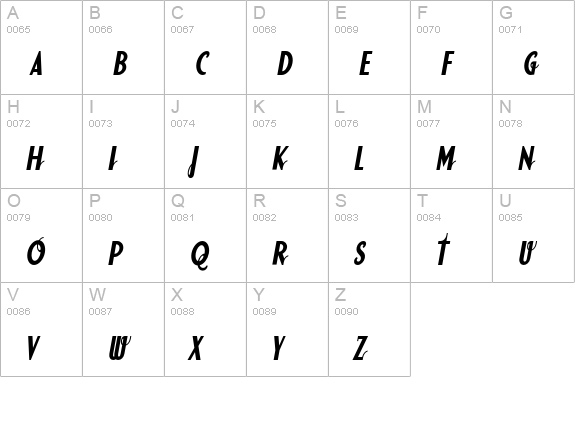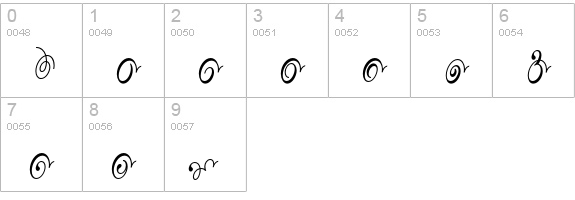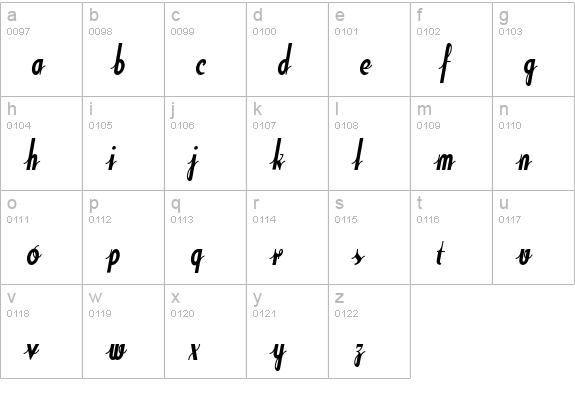
SodaScriptBoldExtras Font Details
Introducing SodaScriptBoldExtras, a captivating and expressive font that will add a touch of flair to any design project. With its bold and distinctive letterforms, this typeface exudes confidence and creativity, making it perfect for eye-catching headlines, striking logos, and attention-grabbing displays. But what truly sets SodaScriptBoldExtras apart is that it is available for free! That's right, this stunning font can be yours without spending a dime. Whether you're a professional designer or an aspiring artist, having access to high-quality fonts shouldn't be limited by budget constraints. That's why SodaScriptBoldExtras is freely available to download at FontsMarket.com. This font's versatility knows no bounds. Its bold strokes and unique character shapes make it an excellent choice for everything from branding and advertising to packaging and social media graphics. Let SodaScriptBoldExtras bring your designs to life with its captivating presence and unmistakable personality. With SodaScriptBoldExtras, you can effortlessly make a bold statement and leave a lasting impression. Its boldness and elegance will command attention and ensure that your message is heard loud and clear. Whether you're designing a poster, creating a website, or crafting an invitation, this font will elevate your work to new heights. The attention to detail in SodaScriptBoldExtras is truly remarkable. Each character is meticulously crafted, making it a joy to work with. Its smooth curves and sharp angles create a harmonious balance, resulting in a font that is both visually stunning and highly legible. Don't miss out on the opportunity to enhance your designs with SodaScriptBoldExtras. Download this exceptional font for free at FontsMarket.com and unlock a world of possibilities. Elevate your typography game and make a lasting impression with SodaScriptBoldExtras today.